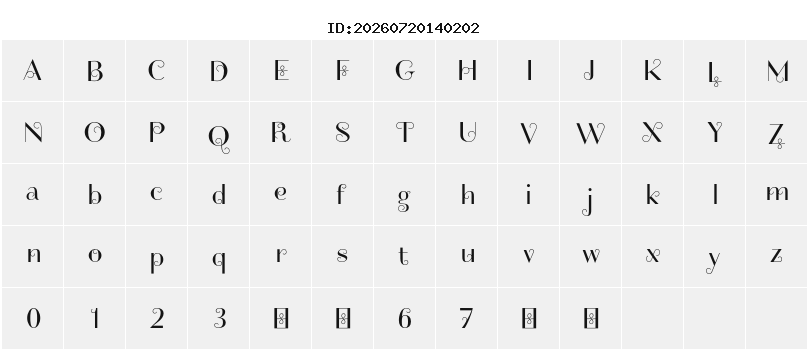
Friandise SwashDemo Preview
• Font Name: Friandise SwashDemo
• Full Font Name: Friandise SwashDemo
About Friandise SwashDemo.otf
Friandise SwashDemo.otf is a modern, elegant sans-serif font designed for ultimate readability and visual harmony. Perfect for branding, headlines, web design, and print materials.